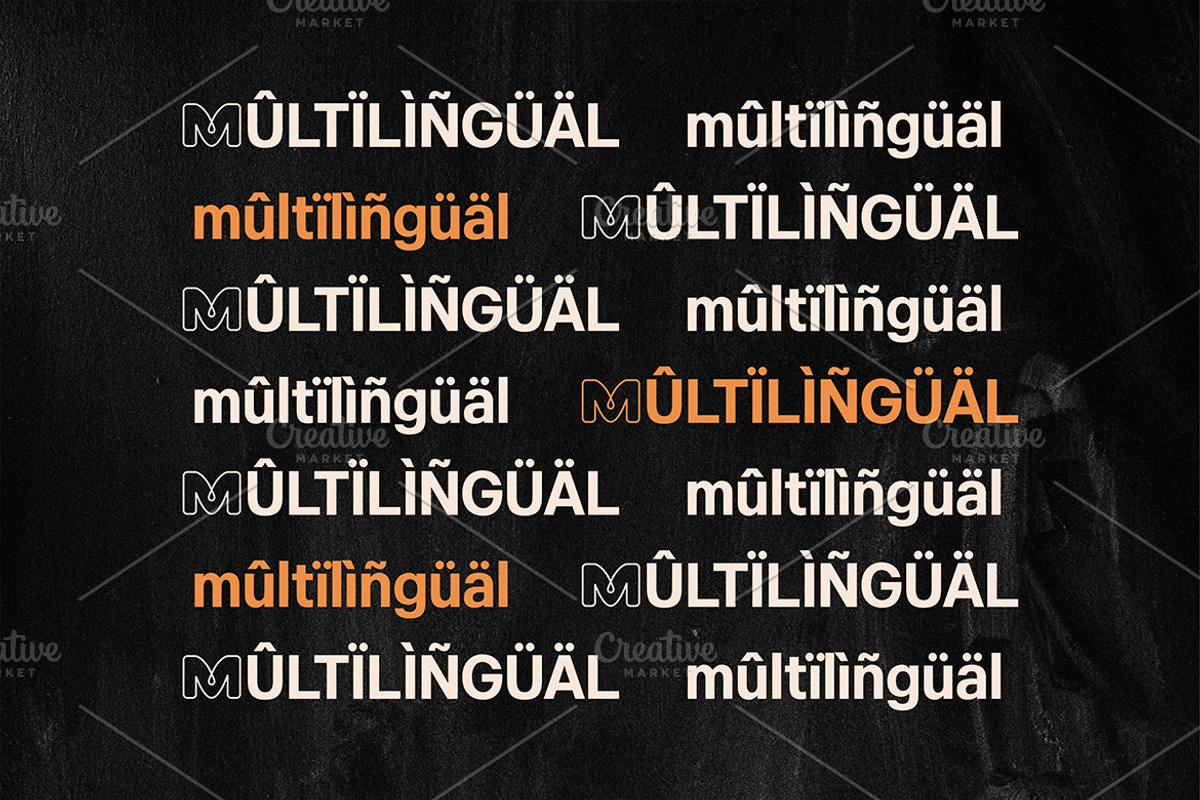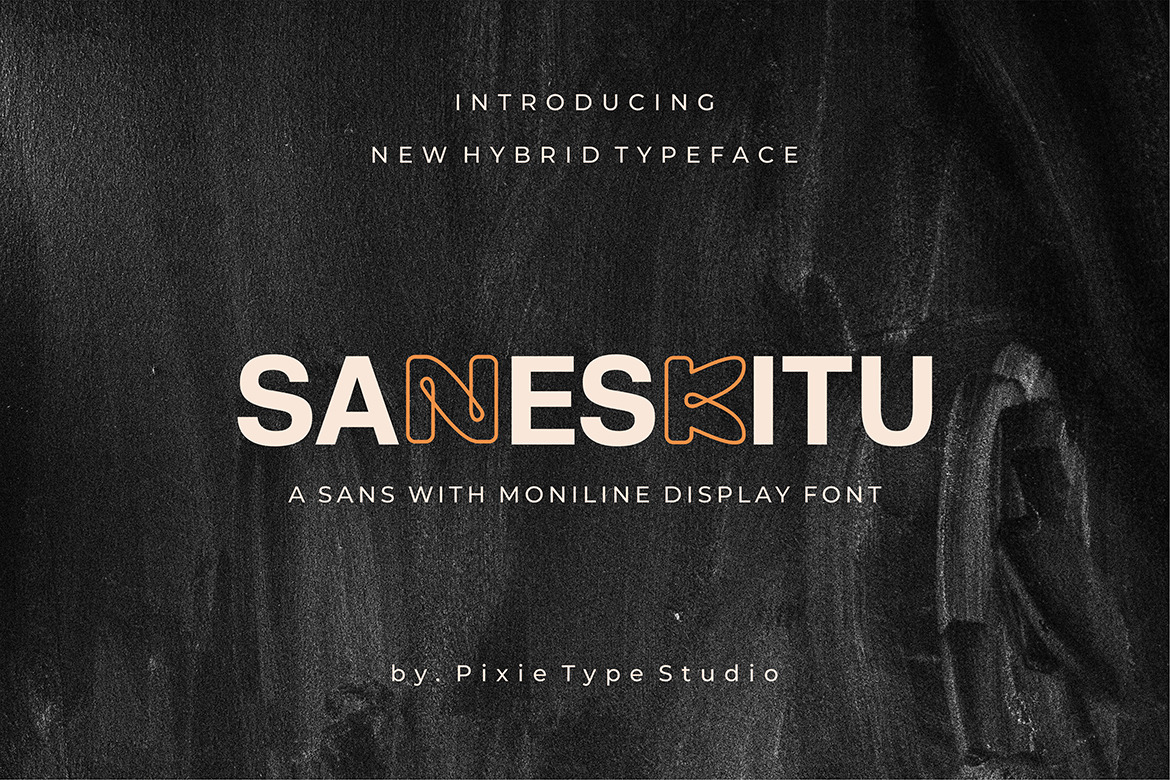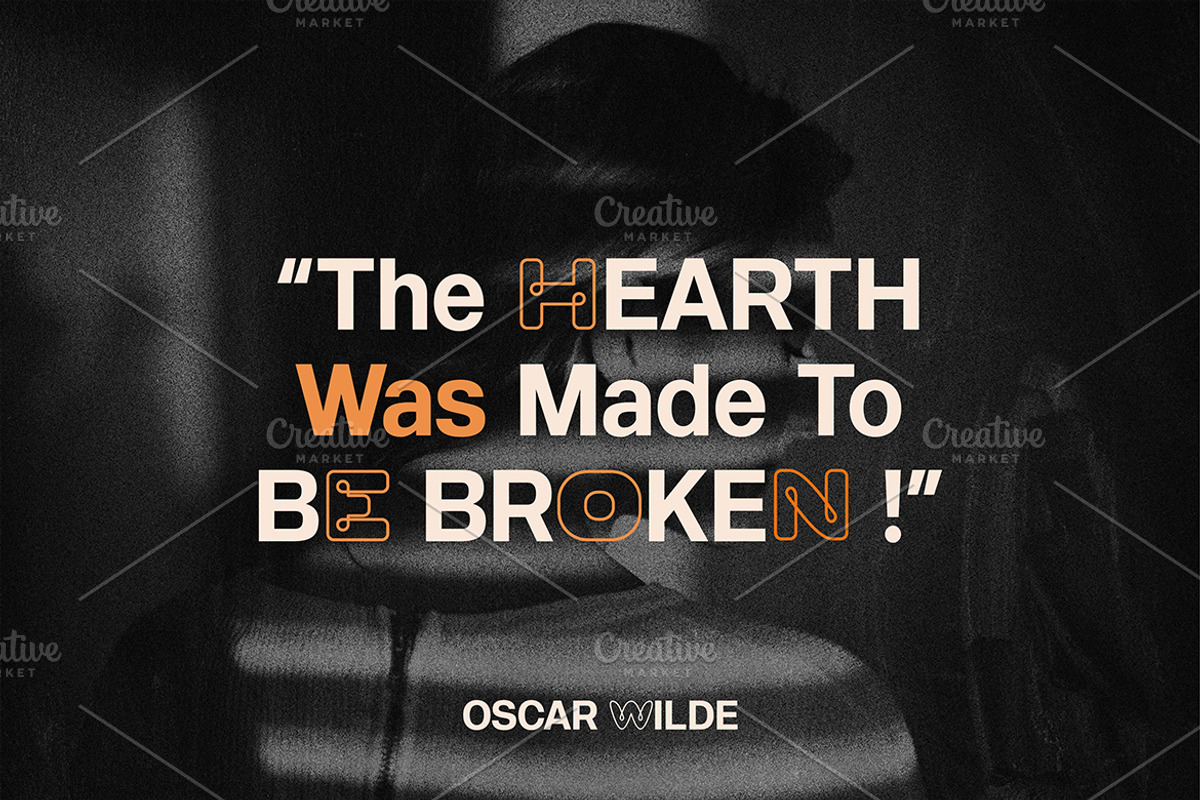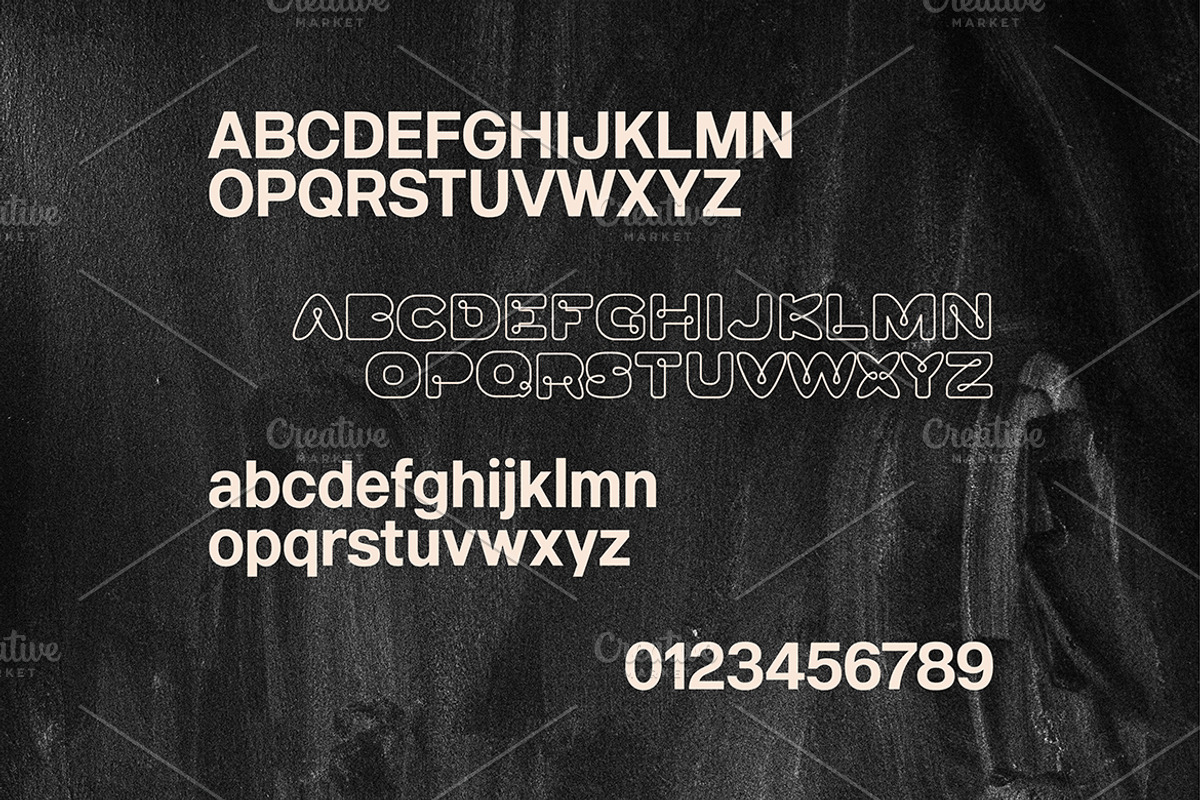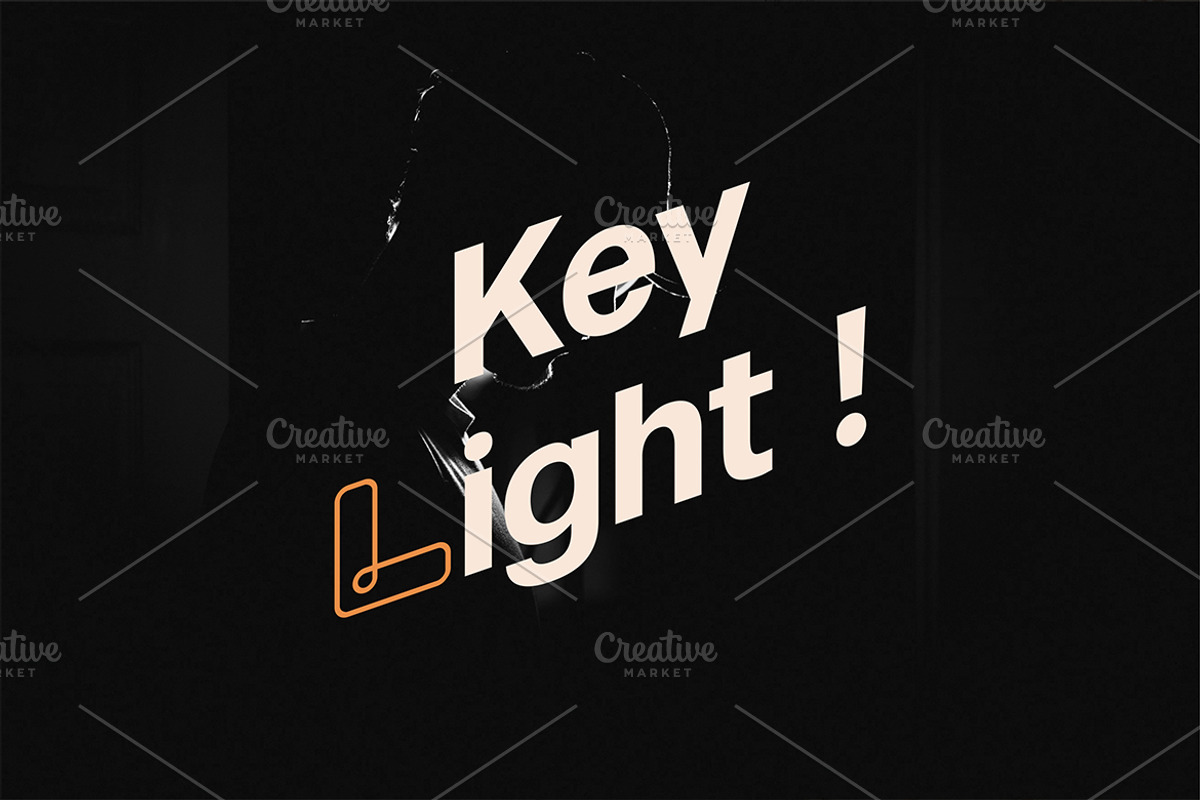
Saneskitu, Hybrid Sans Monoline Font
Saneskitu is a mix font combined from Sans and Monoline display styles. It is perfect for your up coming projects, such as luxury logo and branding, classy editorial design, fashion promotional, art gallery branding, museum, historical of architectural, boutique branding, stationery design, blog design, modern advertising design, card invitation, art quote, home decor, book/cover title, special events and any more.
- Punctuation & symbols